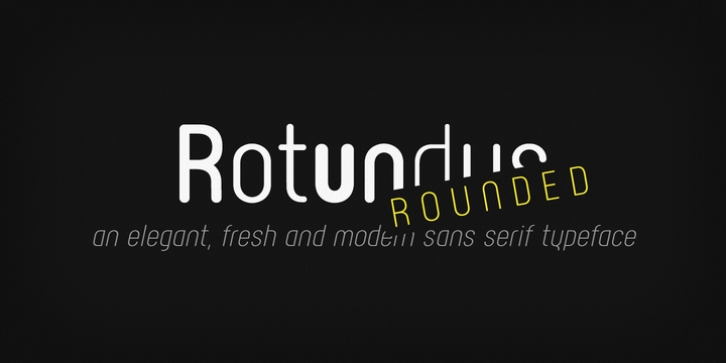
Rotundus Rounded is a rounded version of the Rotundus type family. It is a fresh and modern sans serif typeface based on geometric forms. The main characteristics of the typeface are a tall x-height and condensed width. The distinctive appearance makes Rotundus Rounded suitable for any type of graphic design.
The Rotundus Rounded type family includes extended Latin characters, ligatures and OpenType features. It is available in light, regular, bold and black weight.